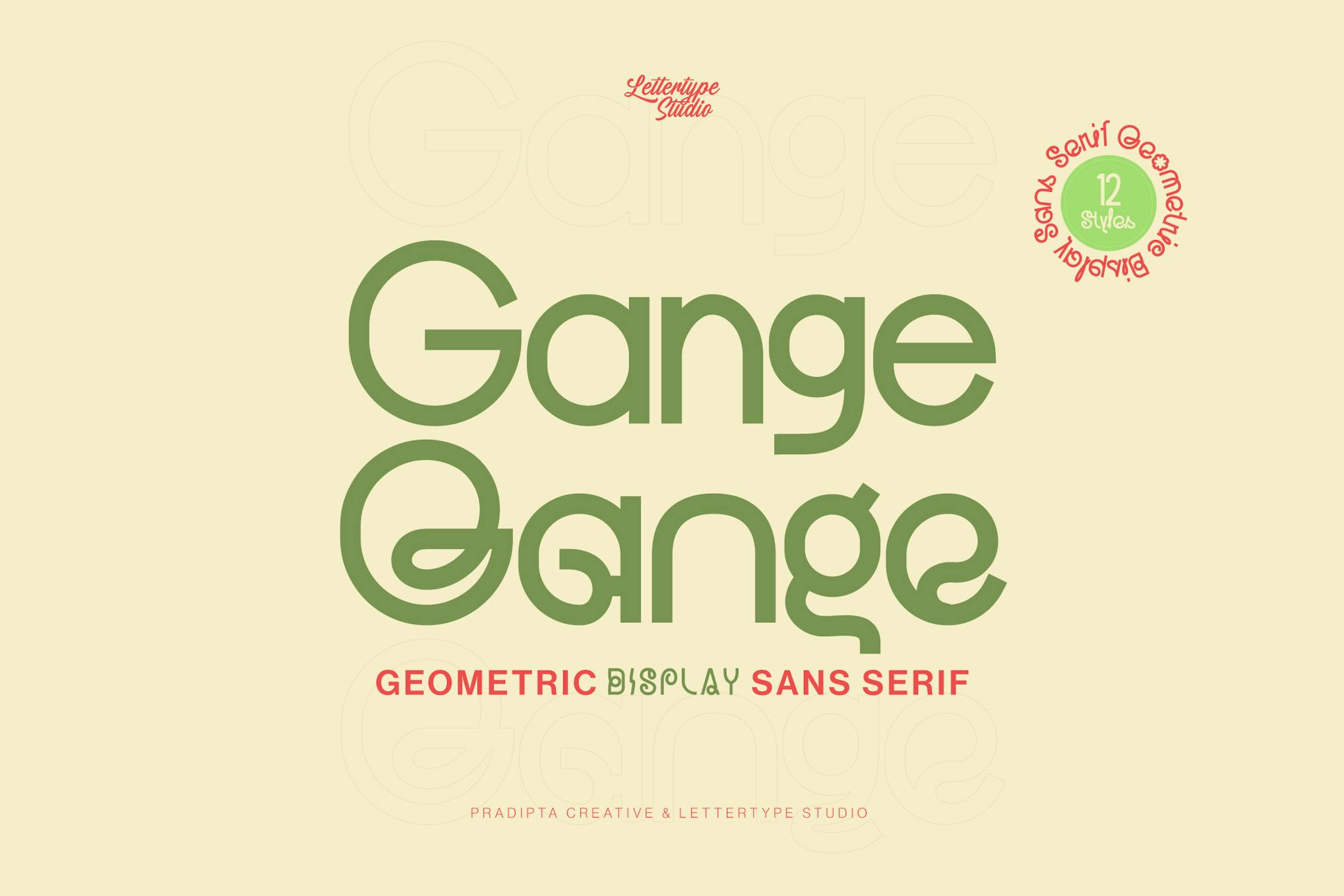
Gange Geometric Display Sans Serif Font
Gange Geometric Display Sans Serif Font is ideal for modern brand identity, architectural signage systems, tech company logos, contemporary poster design, minimalist web headers, corporate presentation graphics, digital advertising campaigns, exhibition displays, and striking editorial headlines.
What makes Gange Geometric Display Sans Serif Font exciting is its perfect mathematical precision combined with bold display optimization that creates maximum visual impact while maintaining geometric purity. This striking typeface features carefully calculated proportions, consistent stroke weights, and clean angular construction that embodies contemporary design excellence. The font's structured beauty and confident presence make it ideal for brands that want to communicate innovation, reliability, and forward-thinking vision through typography that commands attention and respect.
Gange Geometric Display Sans Serif Font family includes comprehensive display weights: Thin Display, Light Display, Regular Display, Medium Display, SemiBold Display, ExtraBold Display, and Black Display, each optimized for large-scale applications. This extensive range provides 8 powerful display fonts that enable designers to create dramatic typographic hierarchies and maintain geometric consistency across bold visual systems.
Design professionals choose Gange Geometric Display Sans Serif Font for its commanding presence and technical excellence. The font's balanced proportions and precise construction work beautifully in both digital displays and large-format environmental graphics. Its geometric character appeals to audiences who appreciate systematic design thinking and contemporary aesthetic innovation.
Whether used for startup branding or corporate rebranding initiatives, Gange Geometric Display Sans Serif Font consistently delivers powerful typography that communicates confidence, innovation, and geometric sophistication that resonates with modern audiences seeking clarity and visual distinction.